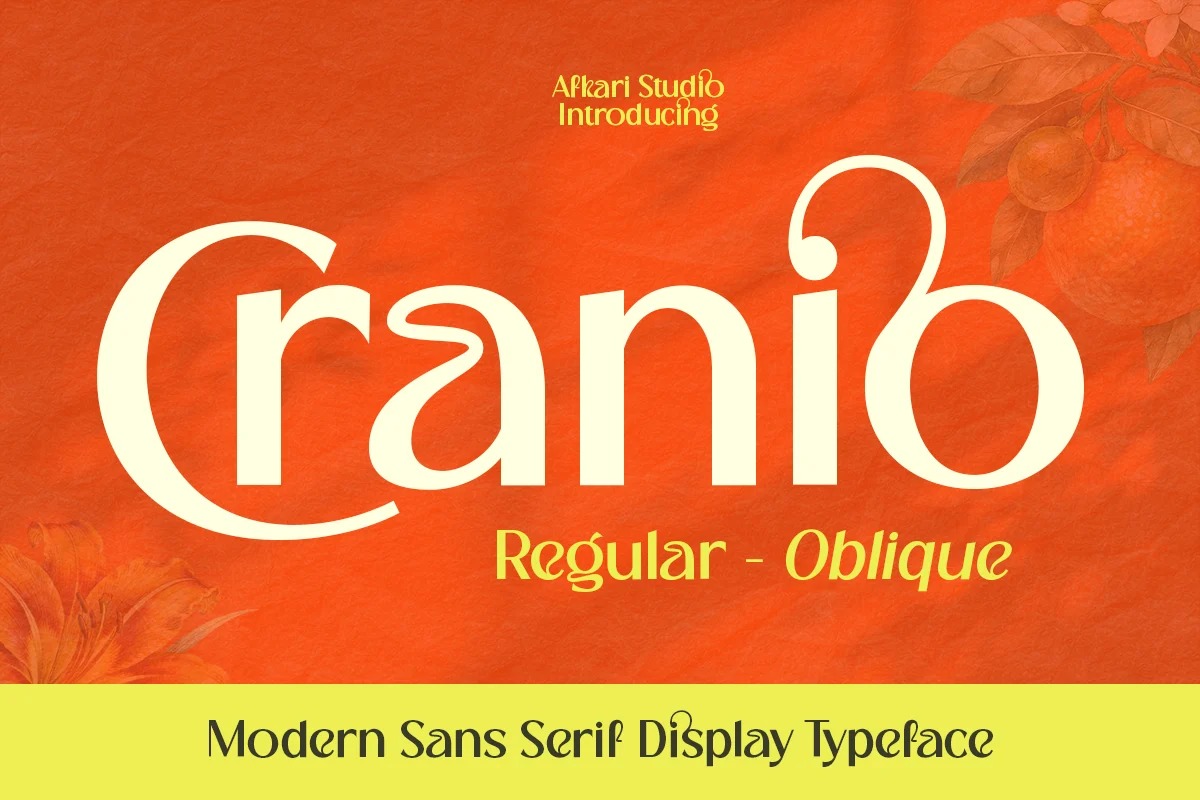
Cranio Font
Cranio Font brings a balanced structure and contemporary look, making it suitable for both digital and print design. Cranio is a modern sans serif display font designed to deliver clean impact, bold clarity, and contemporary style. Cranio combines structural integrity with sophisticated proportions, offering a commandingly professional typeface that aligns seamlessly with the high-stakes world of corporate identity. Its sharp edges and confident letterforms make it an ideal choice for high-visibility typography.
This modern sans serif display font works exceptionally well for logo design, tech branding, startup identities, posters, social media graphics, YouTube thumbnails, advertising campaigns, packaging, and editorial headlines. Cranio is crafted to stand out at large sizes while maintaining excellent readability and structure.
Featuring uppercase and lowercase characters, numbers, punctuation, and multilingual support, Cranio provides flexibility for global creative projects. The minimalist yet powerful design approach makes it suitable for corporate branding, futuristic concepts, urban visuals, and clean modern layouts.